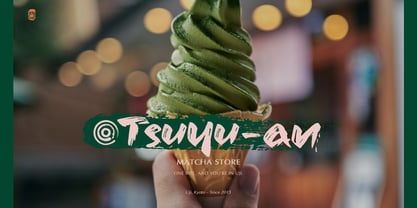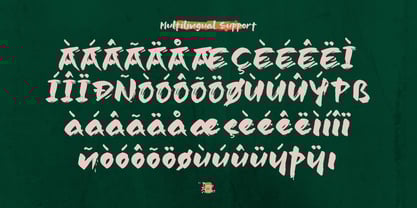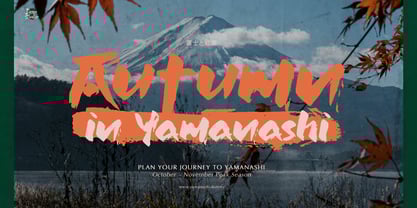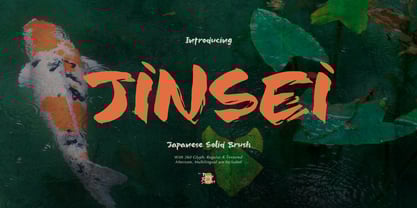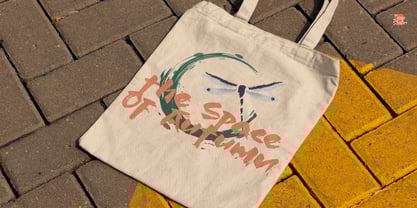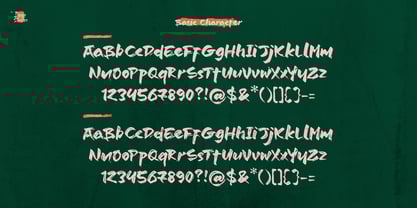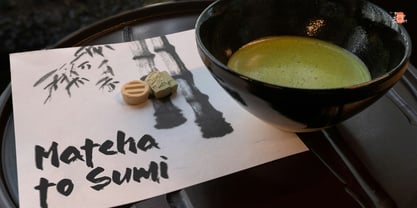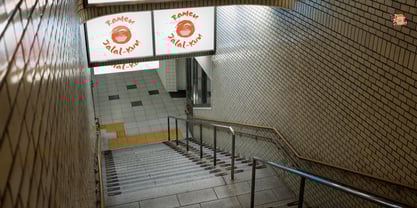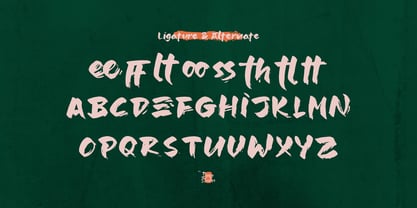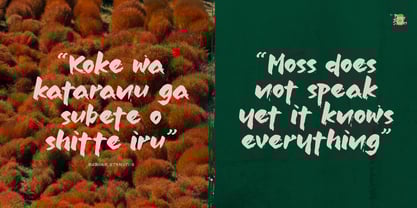
Jinsei Textured
The Jinsei Textured Font Family was designed by Dede Nugraha and published by Denustudio. Jinsei Textured contains 2 styles and family package options. More about this family
Jinsei | Japanese Solid Brush, from Denustudios, suitable for any projects such as: logos, branding projects, homeware designs, product packaging, mugs, quotes, posters, shopping bags, t-shirts, book covers, name card, invitation cards, greeting cards, label, photography, watermark, special events, and all your other lovely projects that need Japanese Solid Brush a taste.
• Regular and Italic
• Alternate and Ligature
• Fonts include multilingual support